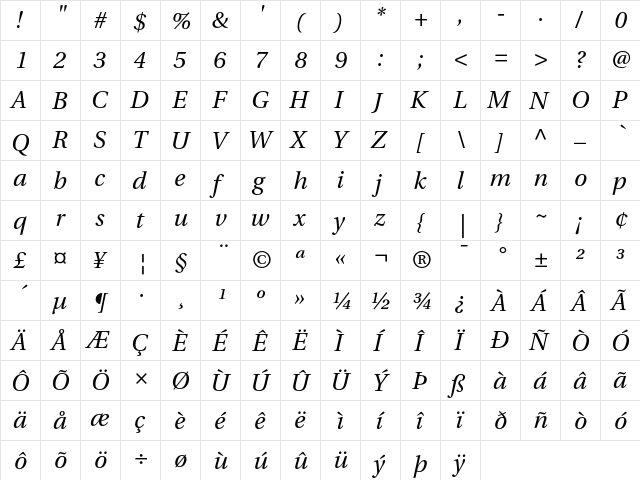
Utopia Italic
Design Context for Utopia Typeface
Utopia takes a measured approach to typography — its balanced proportions and neutral character make it a reliable workhorse for both digital and print work. The dynamic lean of this cut emphasises speed and emphasis in any layout.
Pro Tip: Try Utopia for annotation and caption copy alongside an upright companion — the contrast in angle creates a dynamic but ordered typographic system.